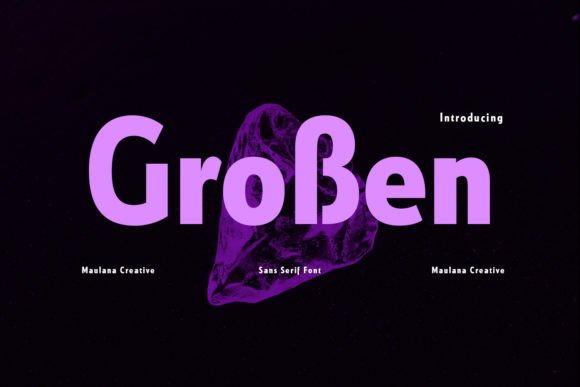
Looking for the best font for print in 2018? Look no further than Großen Font. This contemporary sans-serif font, created by Maulana Creative, boasts sleek lines and timeless appeal that will add a touch of sophistication to any trendy design. With its precision-crafted letters, Großen exudes professionalism and polish.
But that's not all. Großen is PUA encoded, meaning that accessing all its delightful glyphs and swashes is effortless. This font is perfect for elevating your projects and adding a touch of classic sophistication to your work.
Whether you're designing a logo, creating marketing materials, or just adding some flair to your website, Großen is the perfect choice. Its clean lines and modern look make it versatile and eye-catching, while its timeless appeal ensures that it will remain a staple in your design toolkit for years to come.